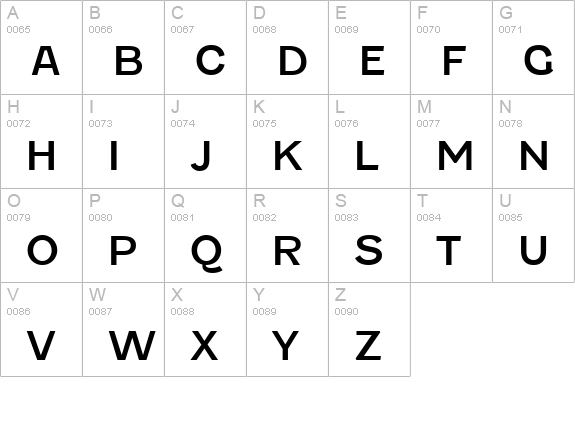
Fenwick font is a stylish and modern typeface that exudes elegance and sophistication. Its sleek lines and sharp angles make it perfect for a wide range of design projects, from branding to packaging to editorial design. The unique combination of classic and contemporary elements gives Fenwick font a timeless appeal that is sure to make your designs stand out. Best of all, Fenwick font is available for free download at FontsMarket.com. This means that you can start using this stunning font in your projects right away, without having to worry about breaking the bank. Whether you're a professional designer or a hobbyist looking to add a touch of class to your work, Fenwick font is the perfect choice. Download it today and see the difference it can make in your designs!